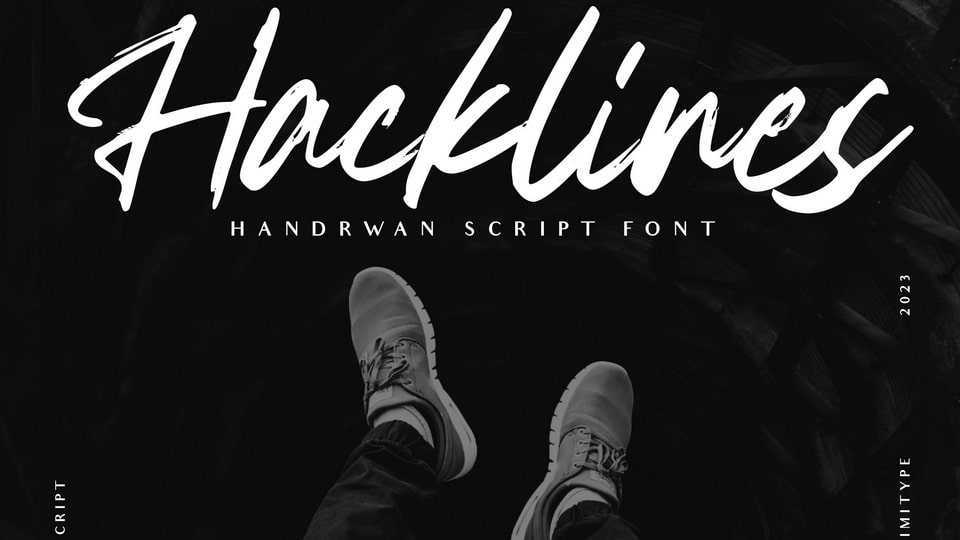
Download Hacklines font, a script crafted in a natural hand-touched style, featuring a flexible appearance and a slightly textured shape that adds to the uniqueness of this font